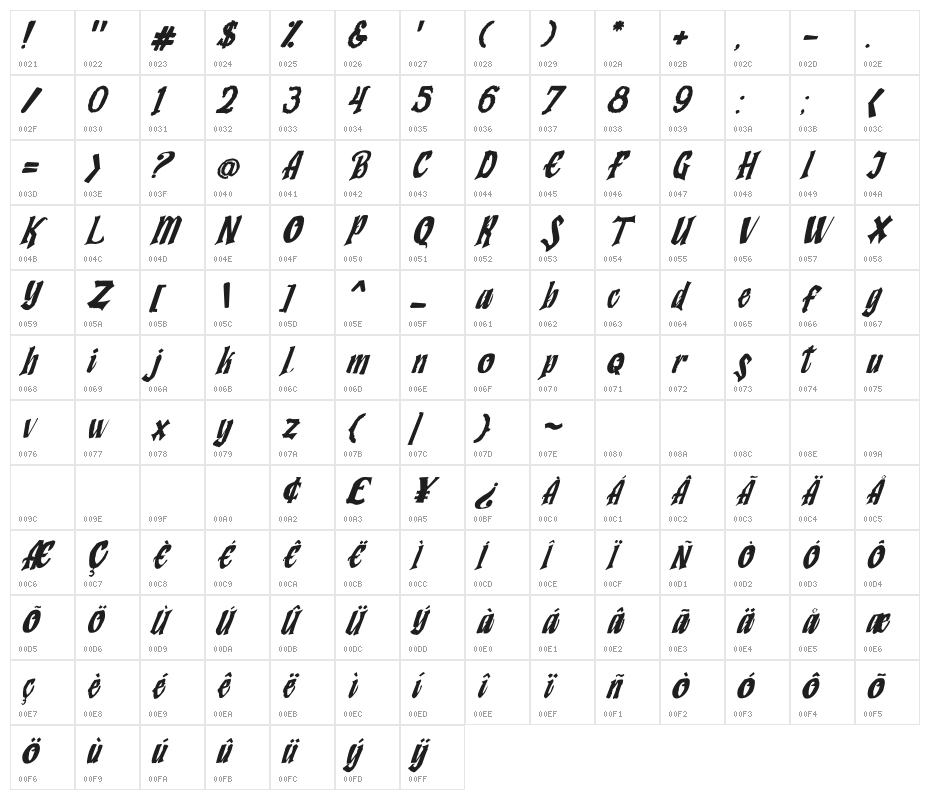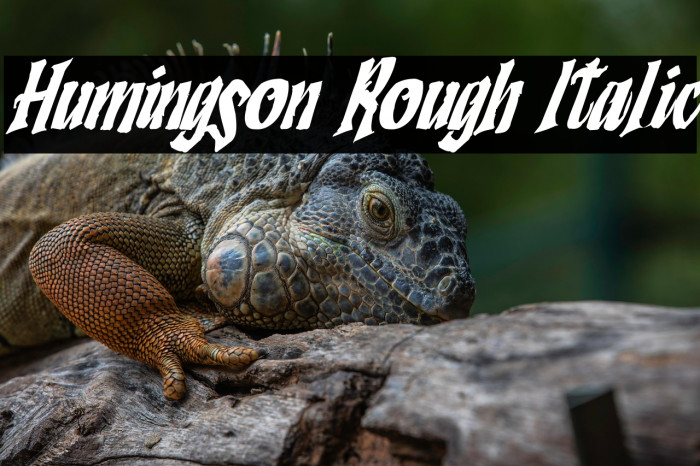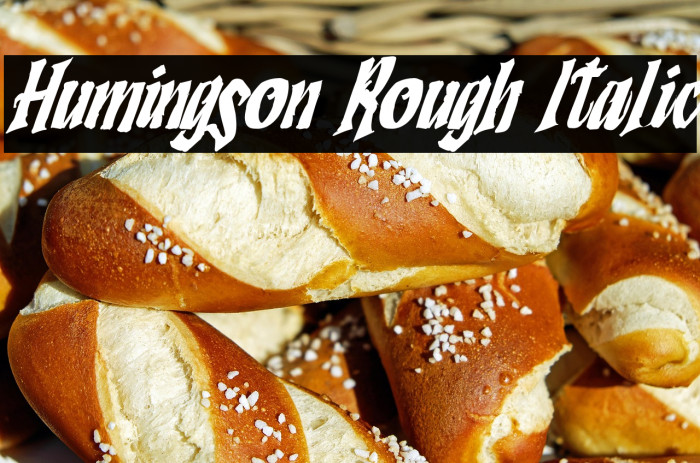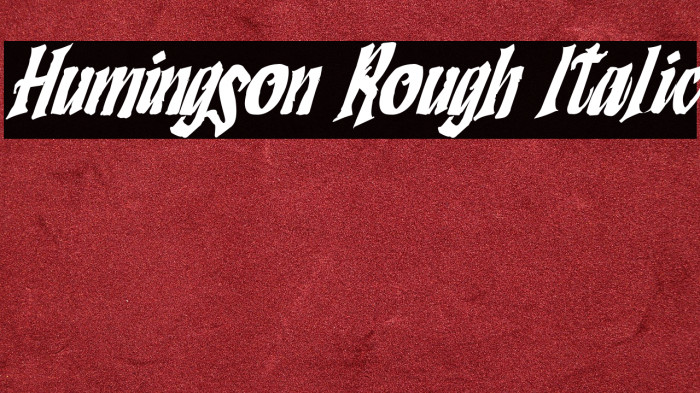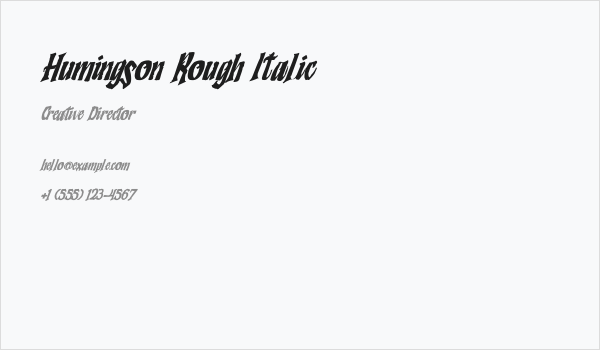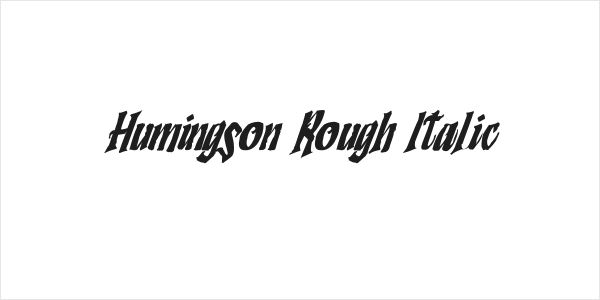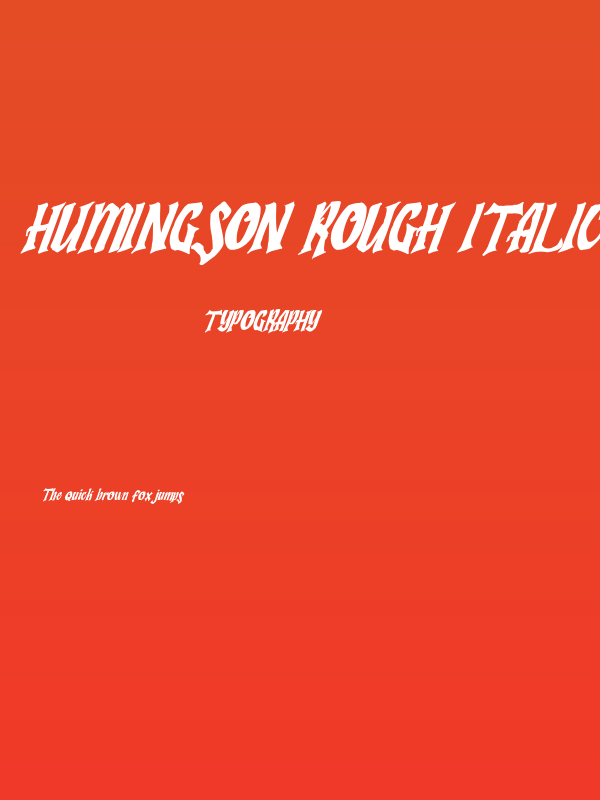
Humingson Rough Italic Font
Humingson Rough Italic Description
This font features a bold and dynamic style with a rough, textured appearance. The characters are italicized, giving a sense of movement and energy. The strokes are thick and uneven, creating a rugged and edgy look. The uppercase and lowercase letters maintain a consistent style, with sharp angles and a slightly condensed form. The numbers and special characters follow the same bold and rough aesthetic, making them stand out prominently. This font is ideal for projects that require a strong and impactful visual presence.